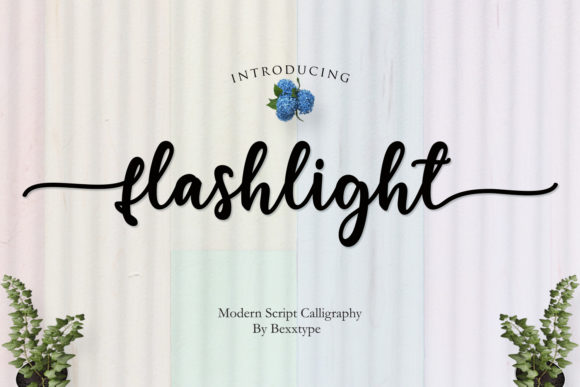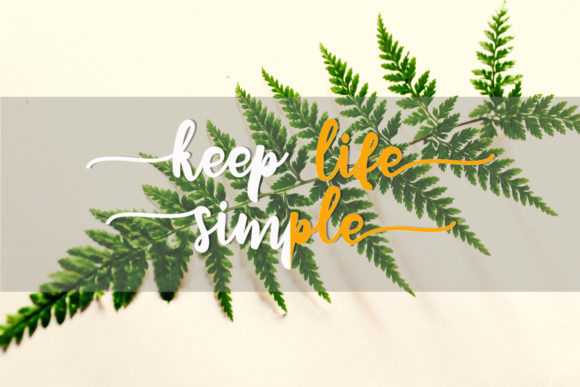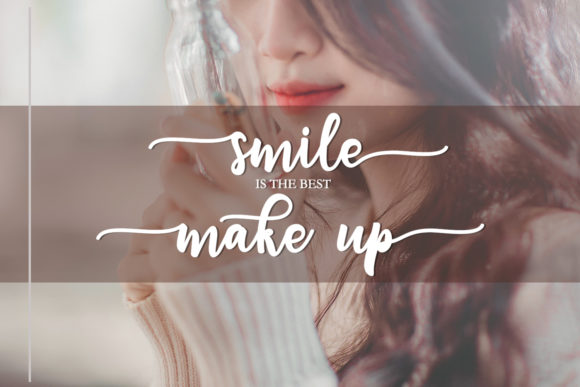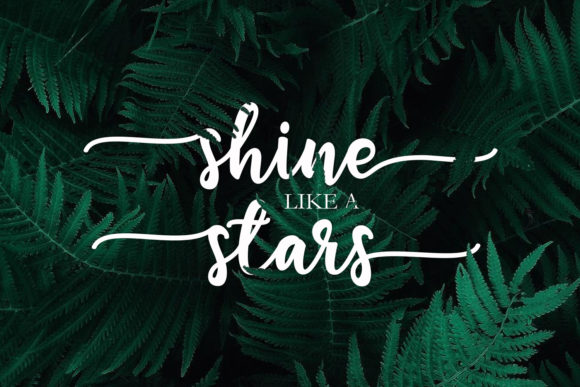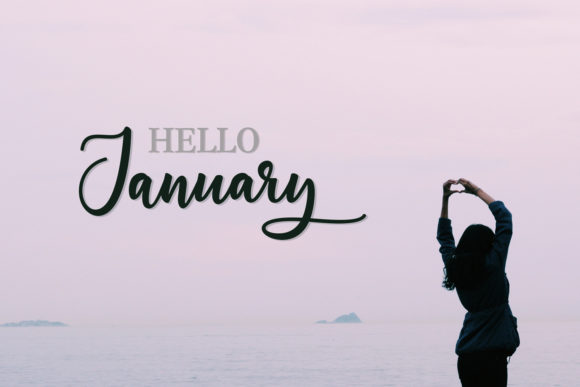
Flashlight Script Font
About Flashlight Script Font
The Flashlight is a new fresh & modern script with a handmade calligraphy style. It has a dancing baseline and elegant decorative characters.
It can be used for greeting cards, branding materials, business cards, quotes, posters, and more!